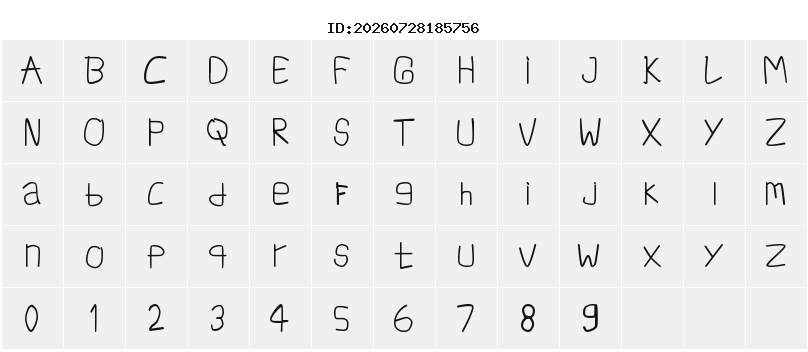
INF Simpang Ampek Preview
• Font Name: INF Simpang Ampek
• Font ID: INF Simpang Ampek:Version 1.00
• Full Font Name: INF Simpang Ampek
• Version: Version 1.00 June 21, 2015, initial release
• PostScript Name: INFSimpangAmpek
• Character Count: 242
• Designer: MrNastZz
• Description: This font was created using FontCreator 8.0 from High-Logic.com
About INF Simpang Ampek.otf
INF Simpang Ampek.otf is a modern, elegant sans-serif font designed for ultimate readability and visual harmony. Perfect for branding, headlines, web design, and print materials.